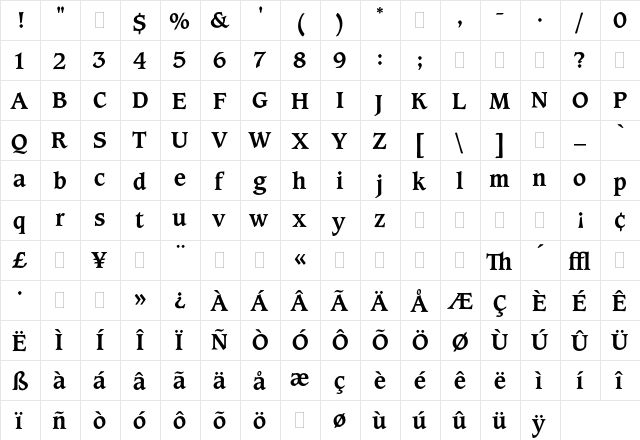
Caxton Roman Bold Plain
Design Context for Caxton Roman Bold Typeface
Caxton Roman Bold takes a measured approach to typography — its balanced proportions and neutral character make it a reliable workhorse for both digital and print work. The heavy weight commands attention and anchors typographic hierarchies.